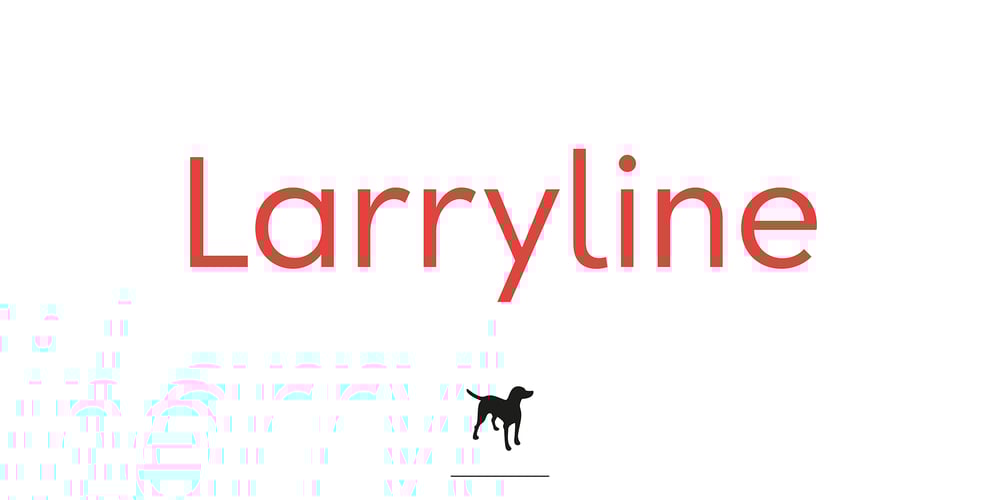
Larryline
Larryline font
Larryline Font Family was designed by Erwin Krump and published by Erwin Krump. Larryline contains 12 styles and family package options. The Larryline family contains 6 stroke thicknesses and a proper italic, also in 6 thicknesses. It is suitable for a wide range of applications and can be readily combined with other fonts. The x-height of Larryline is identical with the x-height of Lunaquête font.Erwin Krump, typograph and sculptor, developed the Larryline font in 2016—2020.